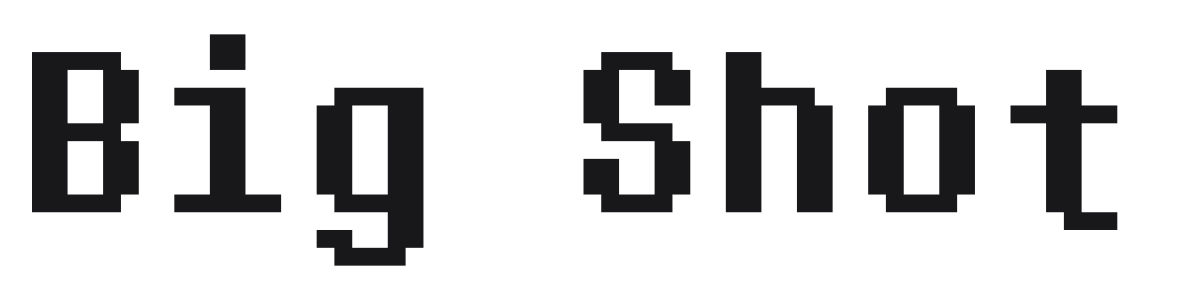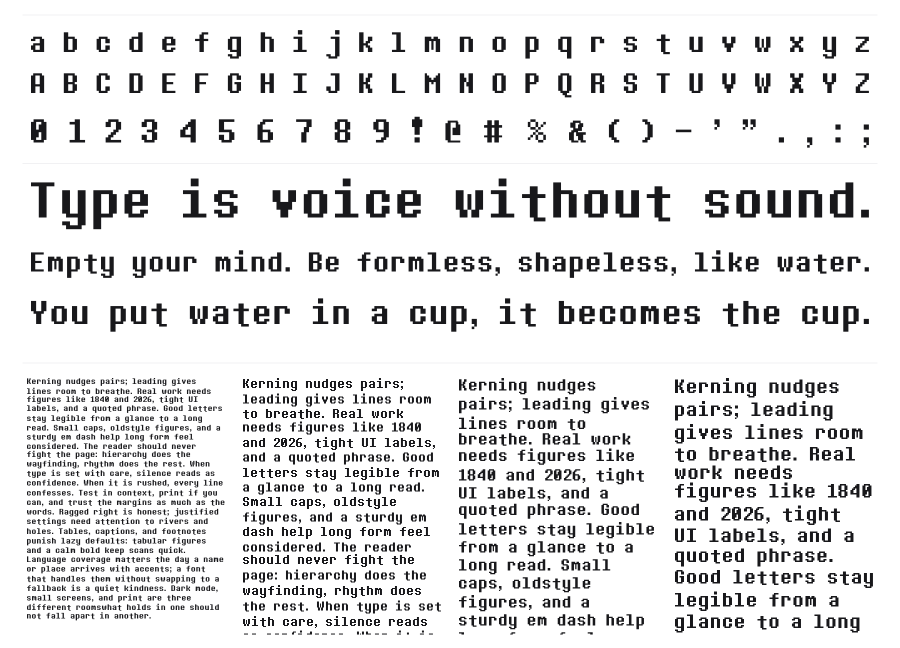
Big Shot
Big Shot is a bold bitmap pixel font recreated from the in-game dialog text of Deltarune. Built on a strict pixel grid, every character is composed of chunky square units that faithfully reproduce the look of an 8-bit RPG text box. It brings that specific flavor of indie JRPG nostalgia directly into design work.